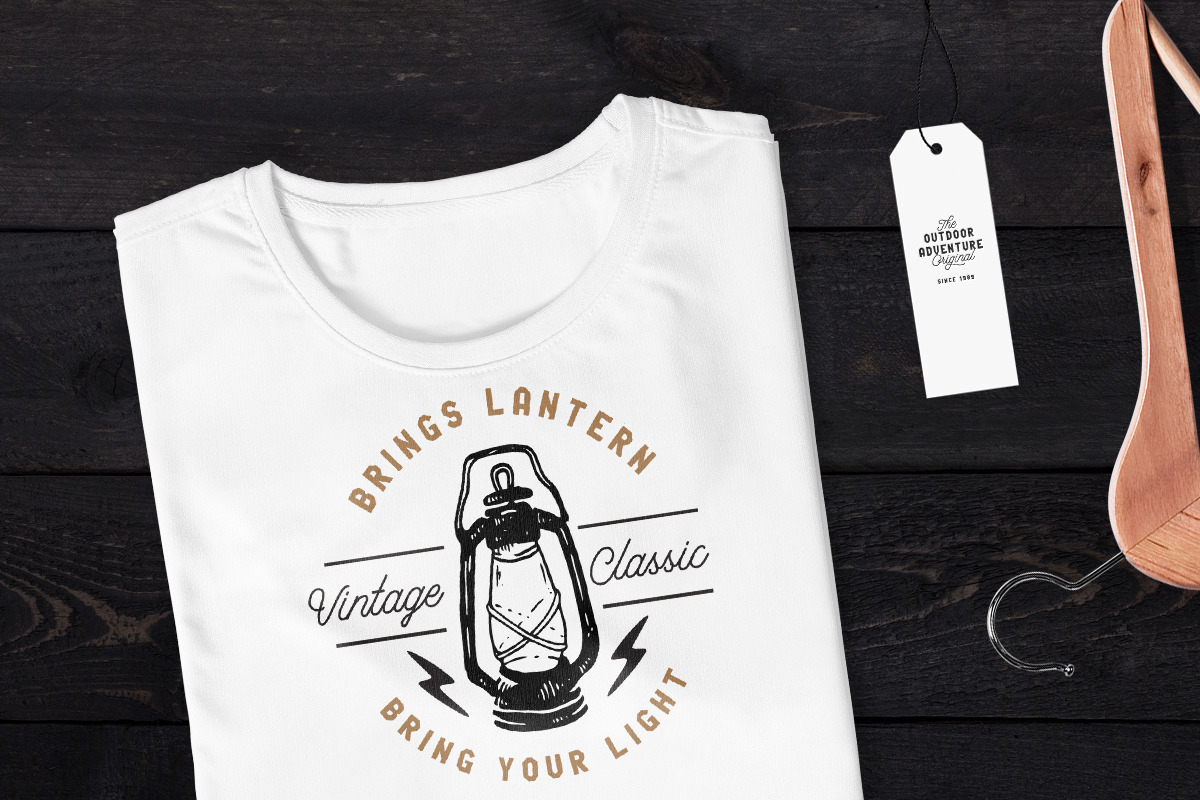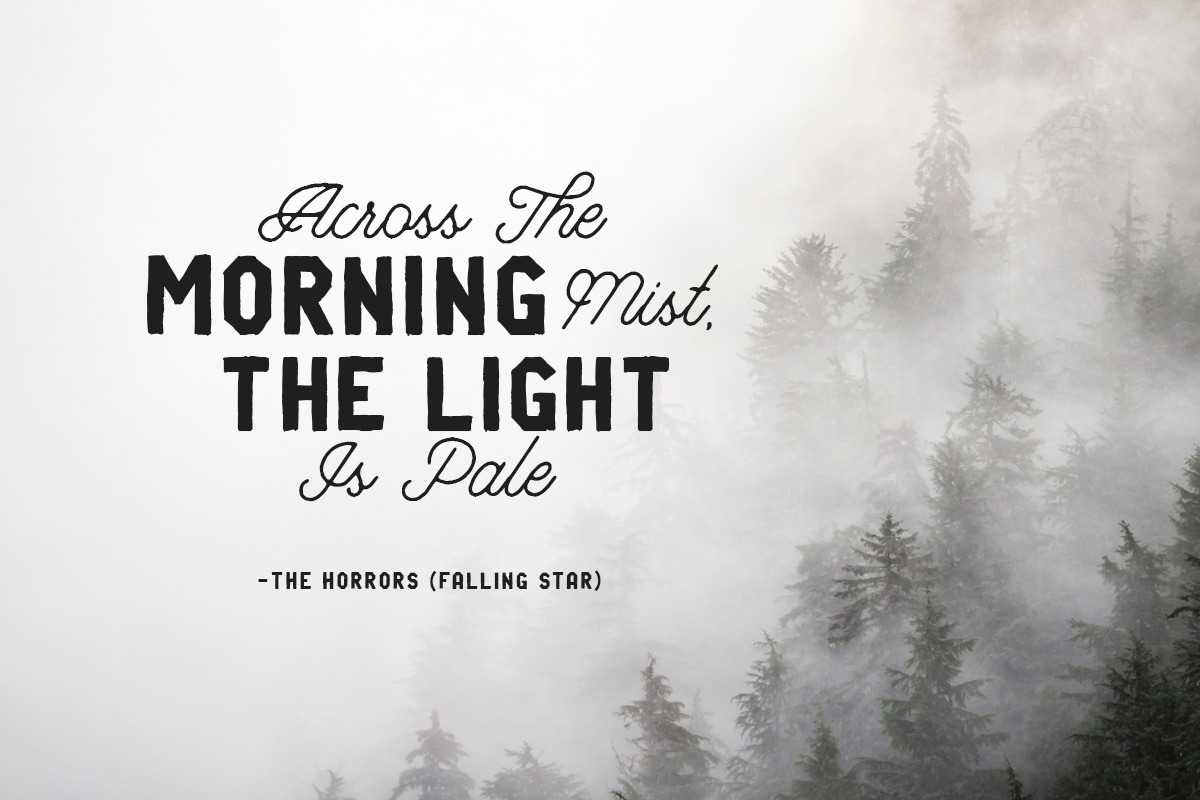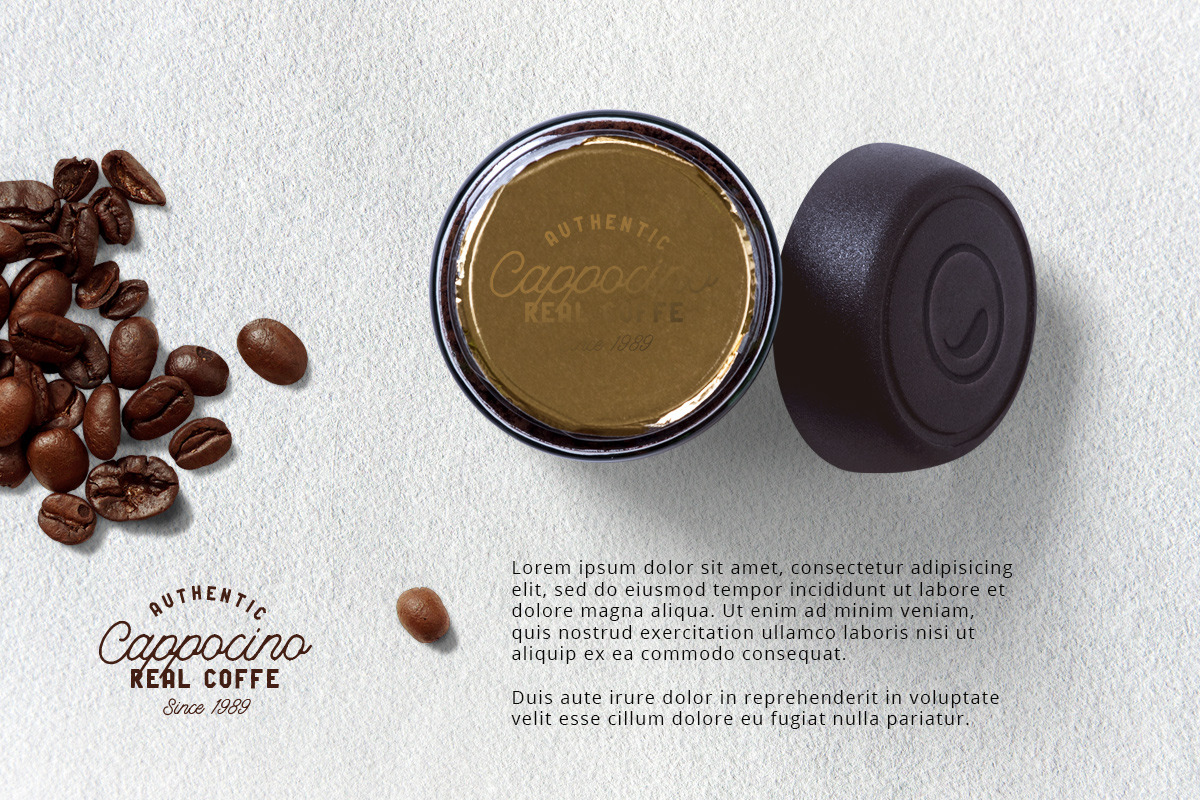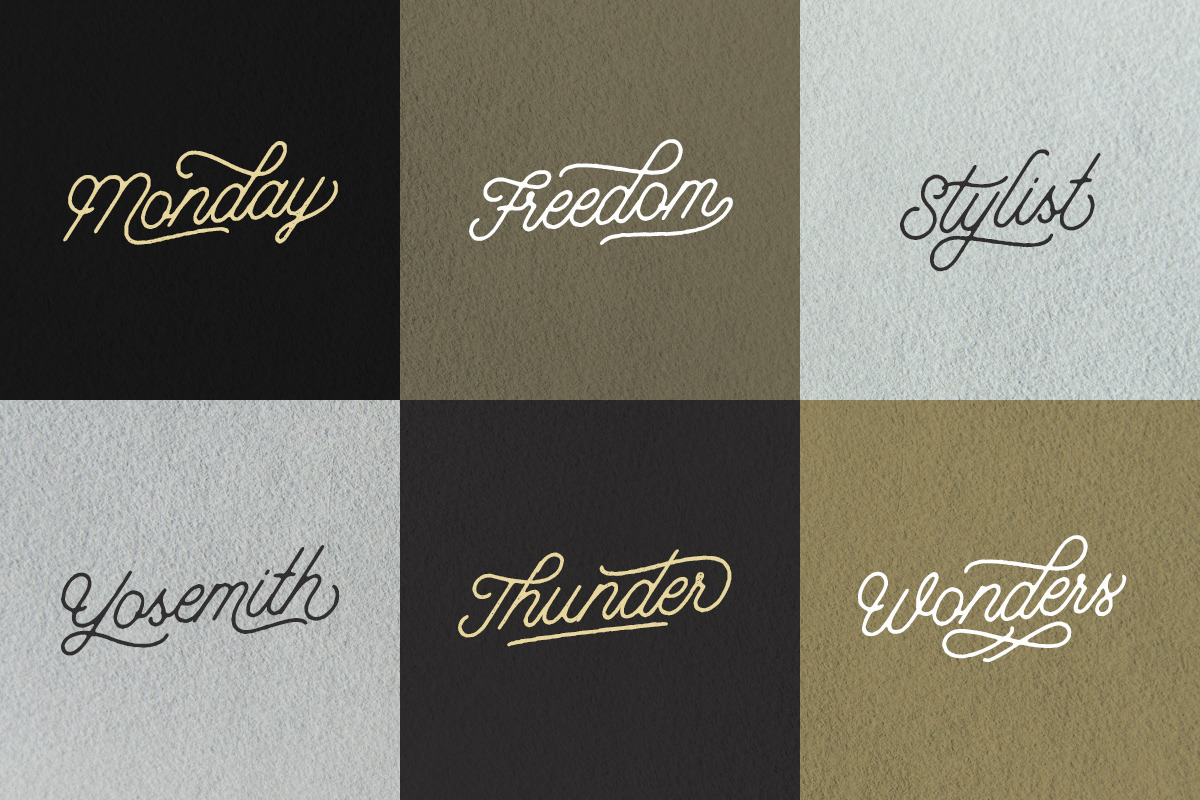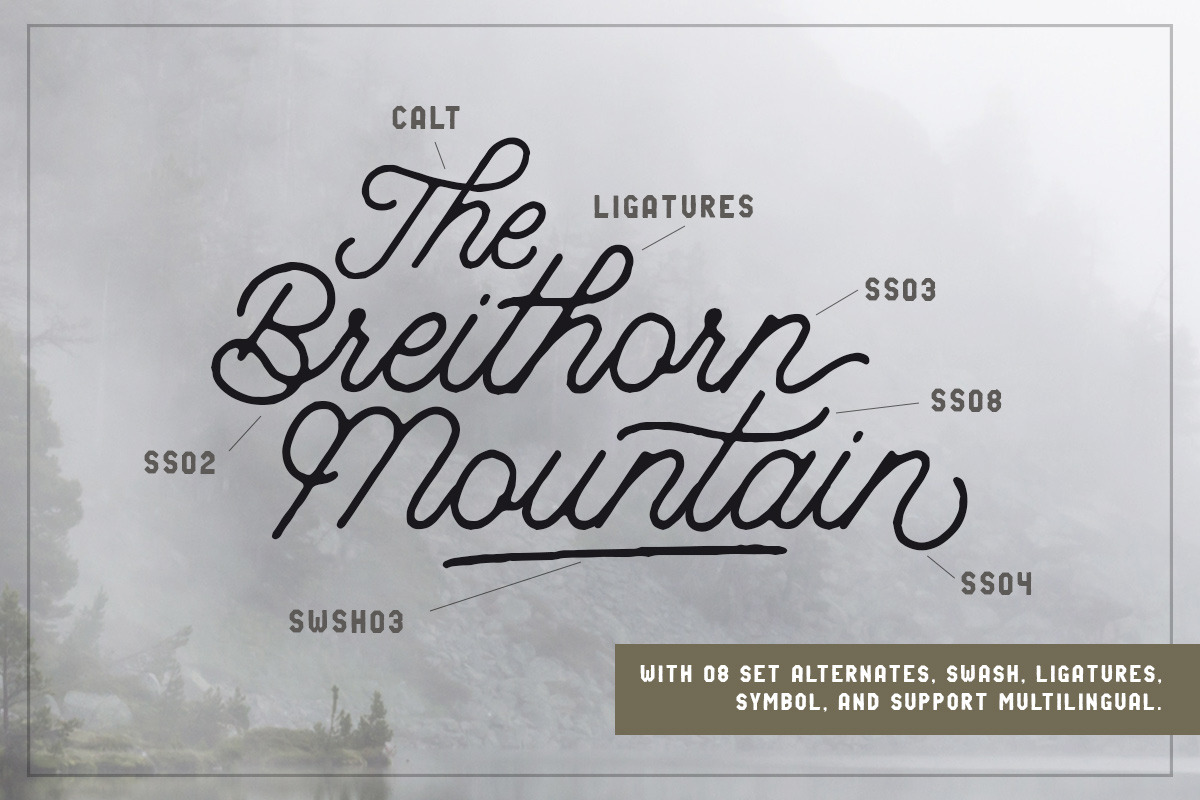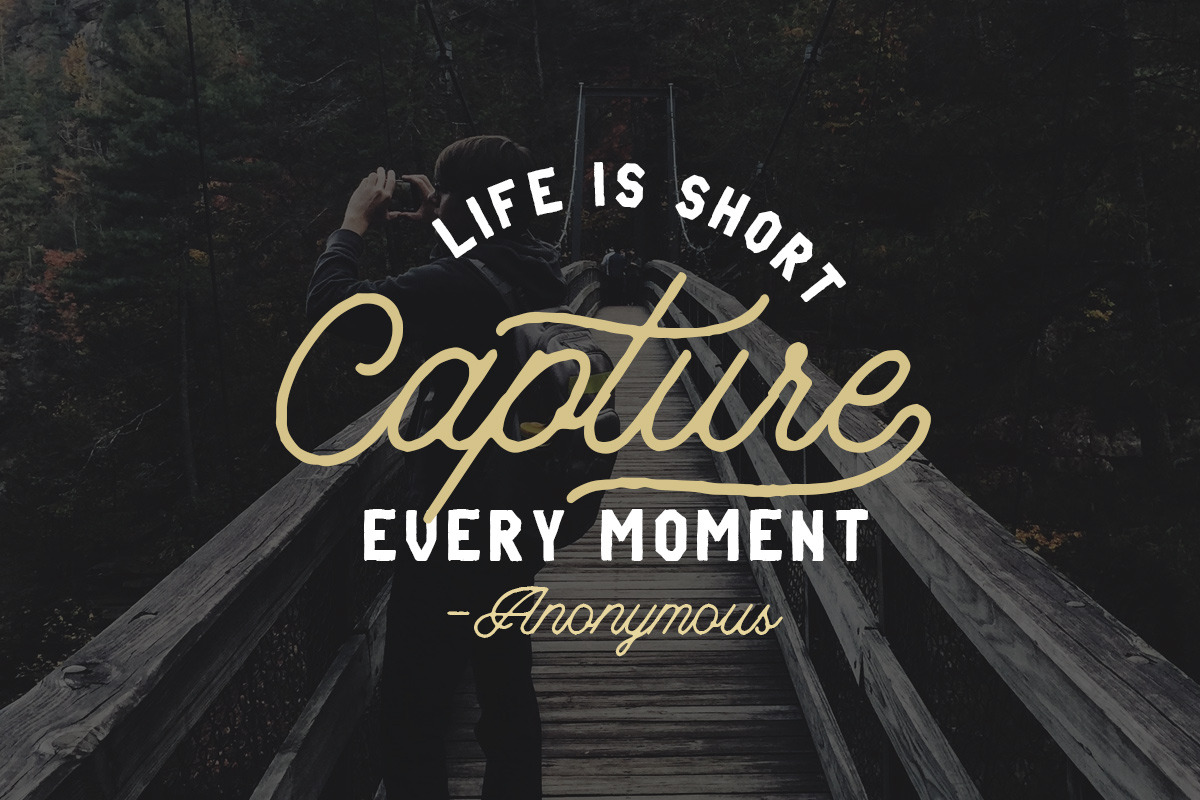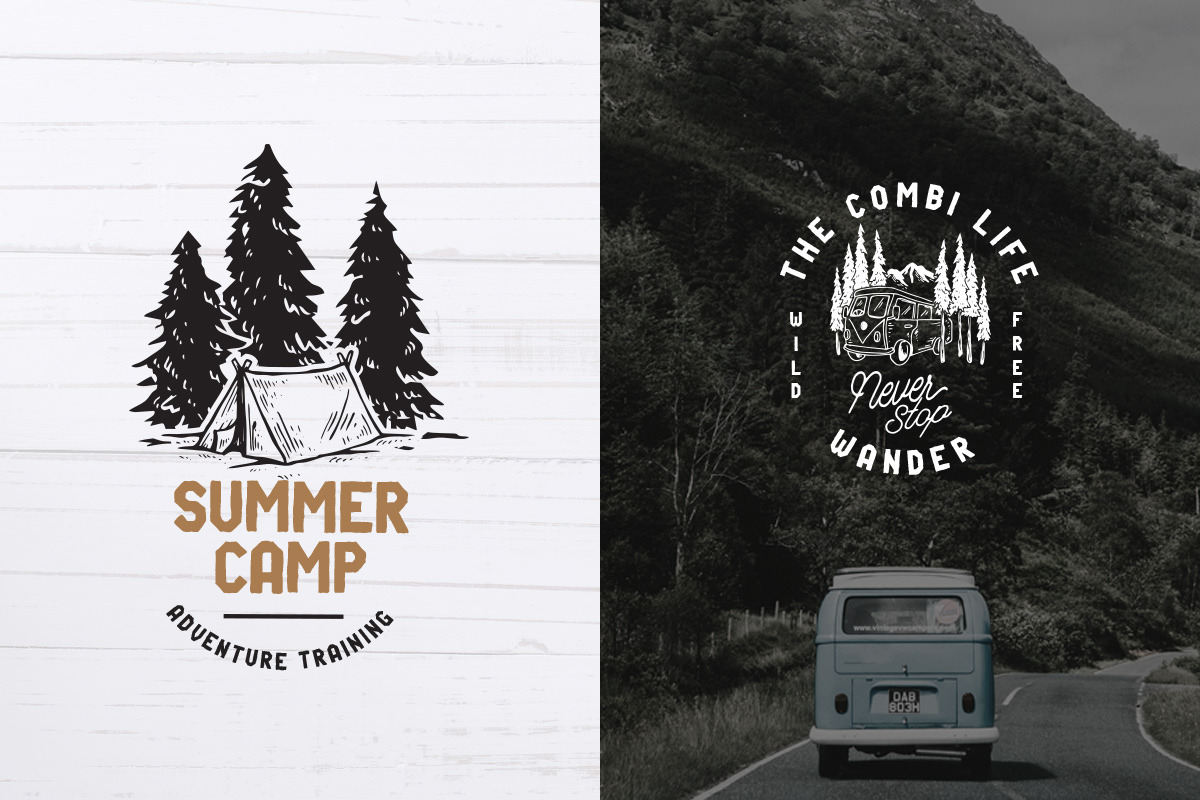
Riverside Font Duo
Introducing, Riverside. A handmande typeface with monoline and sans. This font is perfect to be used as tshirt design, logo / brand, signature, headline, lettering quotes, etc. It also comes in uppercase, lowercase, punctuations, symbols & numerals, stylistic set alternate, ligatures, etc also support multilingual. It also already PUA Encoded.
- It also comes in uppercase, lowercase, punctuations, symbols & numerals, stylistic set alternate, ligatures, etc also support multilingual.
Why Riverside Font Duo is worth a look
Riverside Font Duo by Letterhend Studio fits naturally into Branding, posters, packaging, typography.